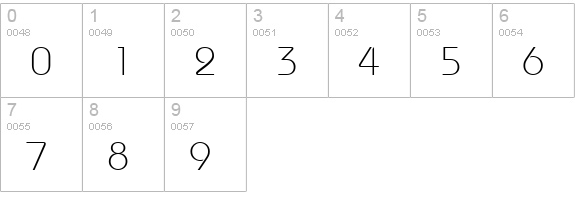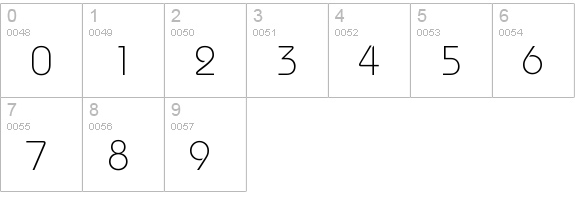
Dyname Light SSi Light Font Details
Dyname Light SSi Light is a refined, elegant variant in the Dyname typeface family \xE2\x80\x94 well suited to elegant body text, refined sub-headings, and luxury branding.
Dyname Light SSi Light font is a sleek and modern typeface that exudes sophistication and elegance. Its clean lines and minimalistic design make it perfect for a wide range of design projects, from branding to editorial layouts. The light weight of the font adds a delicate touch to any text, making it easy to read and visually pleasing. What's even better is that Dyname Light SSi Light font is available for free download at FontsMarket.com. This means you can enhance your designs with this beautiful typeface without having to spend a dime. Whether you're working on a personal project or a professional assignment, this font is a versatile choice that will surely elevate your work to the next level. Download Dyname Light SSi Light font today and add a touch of sophistication to your designs.